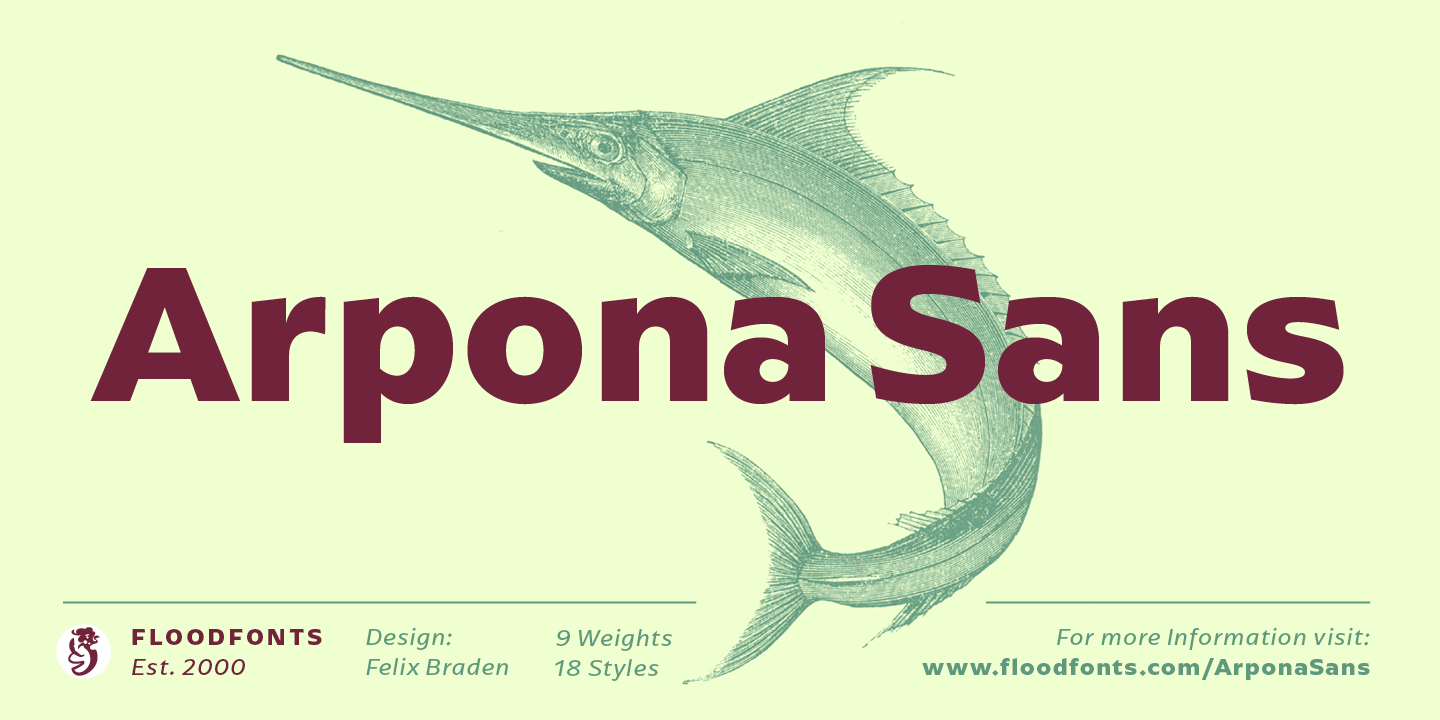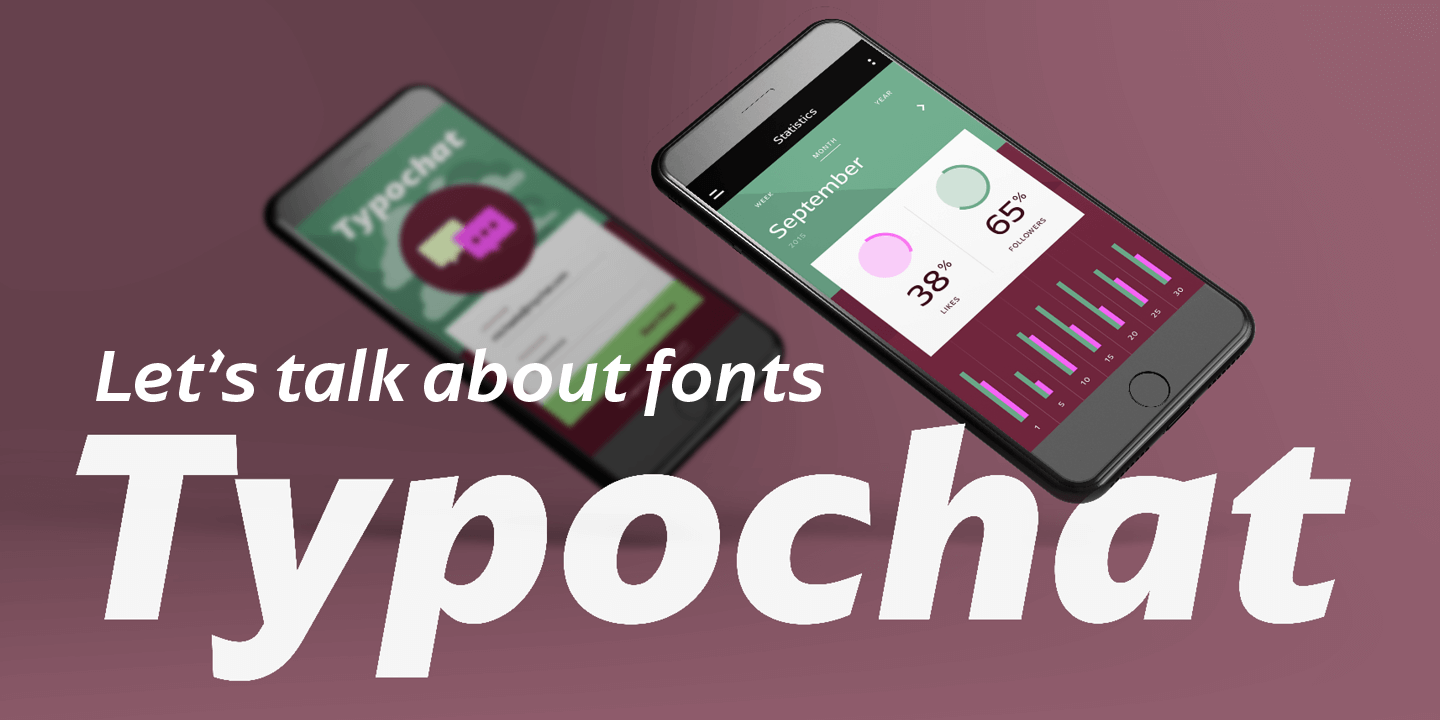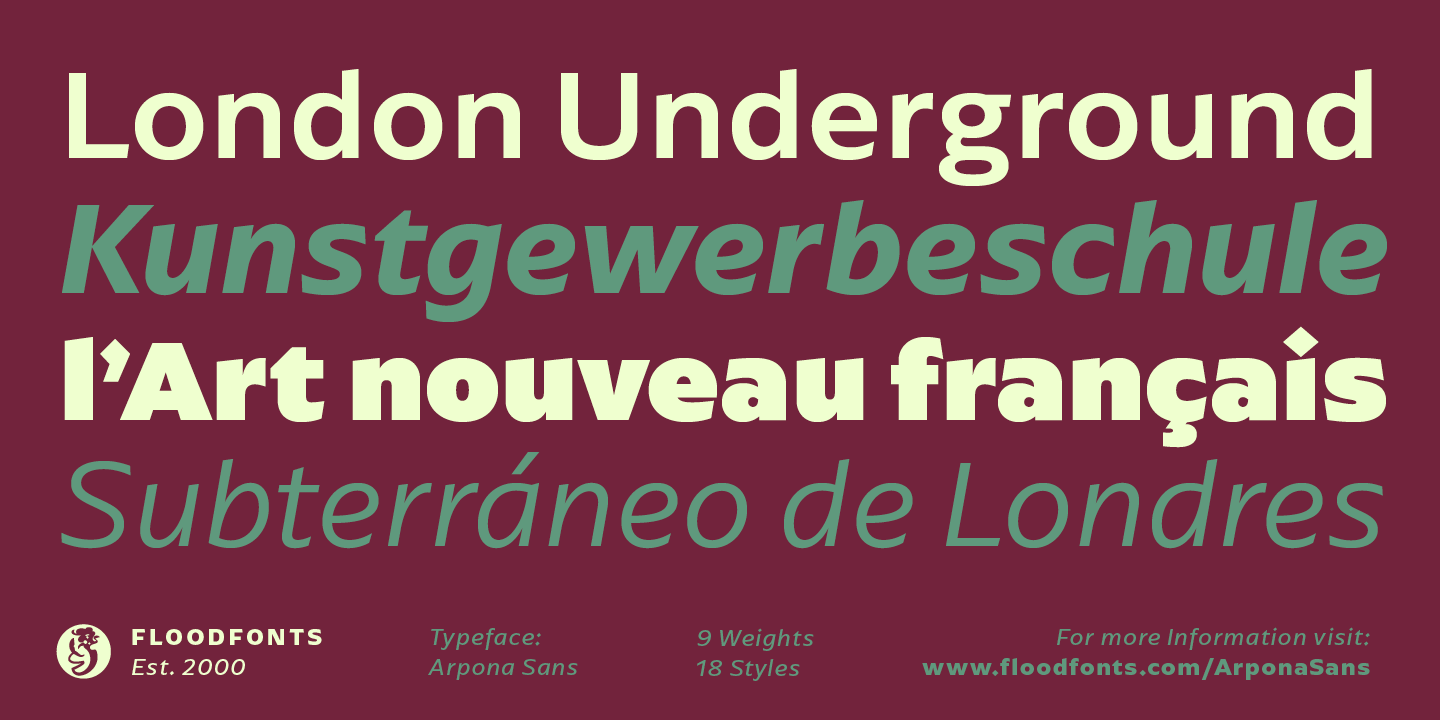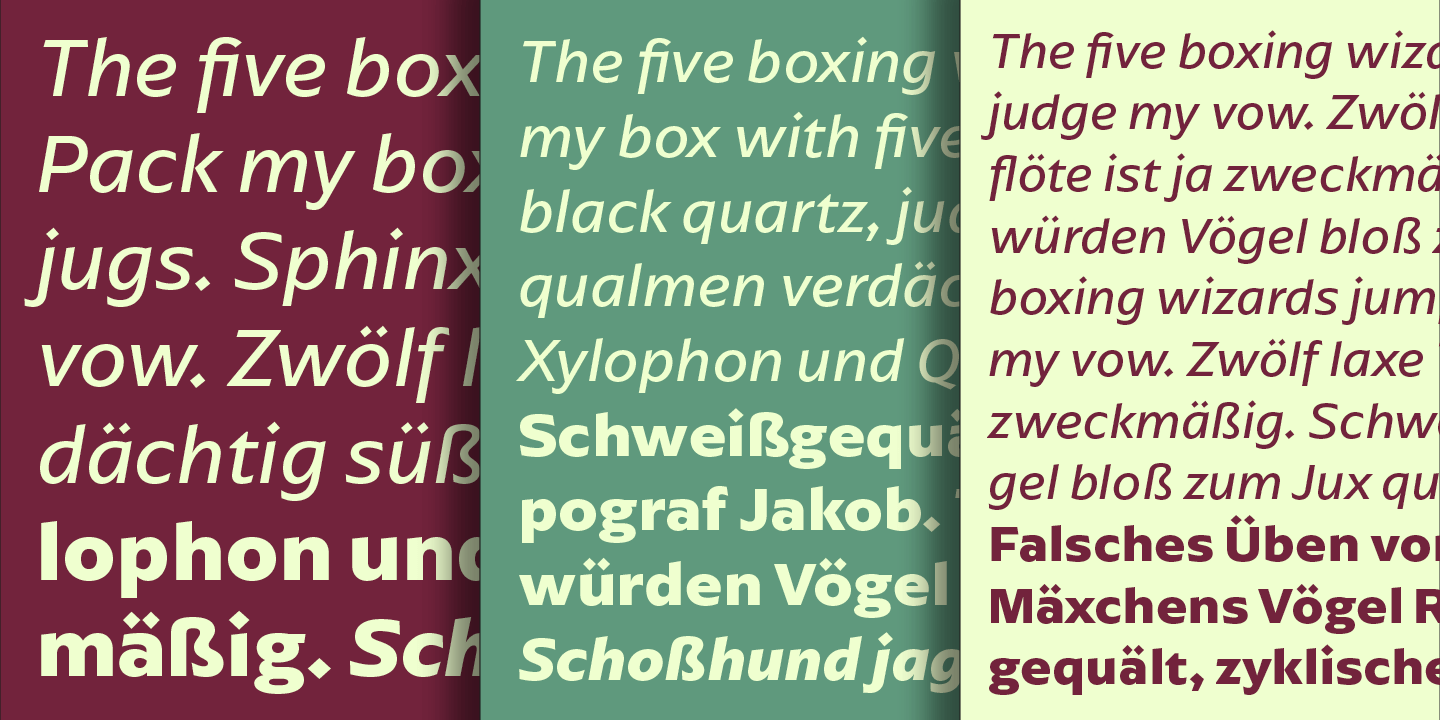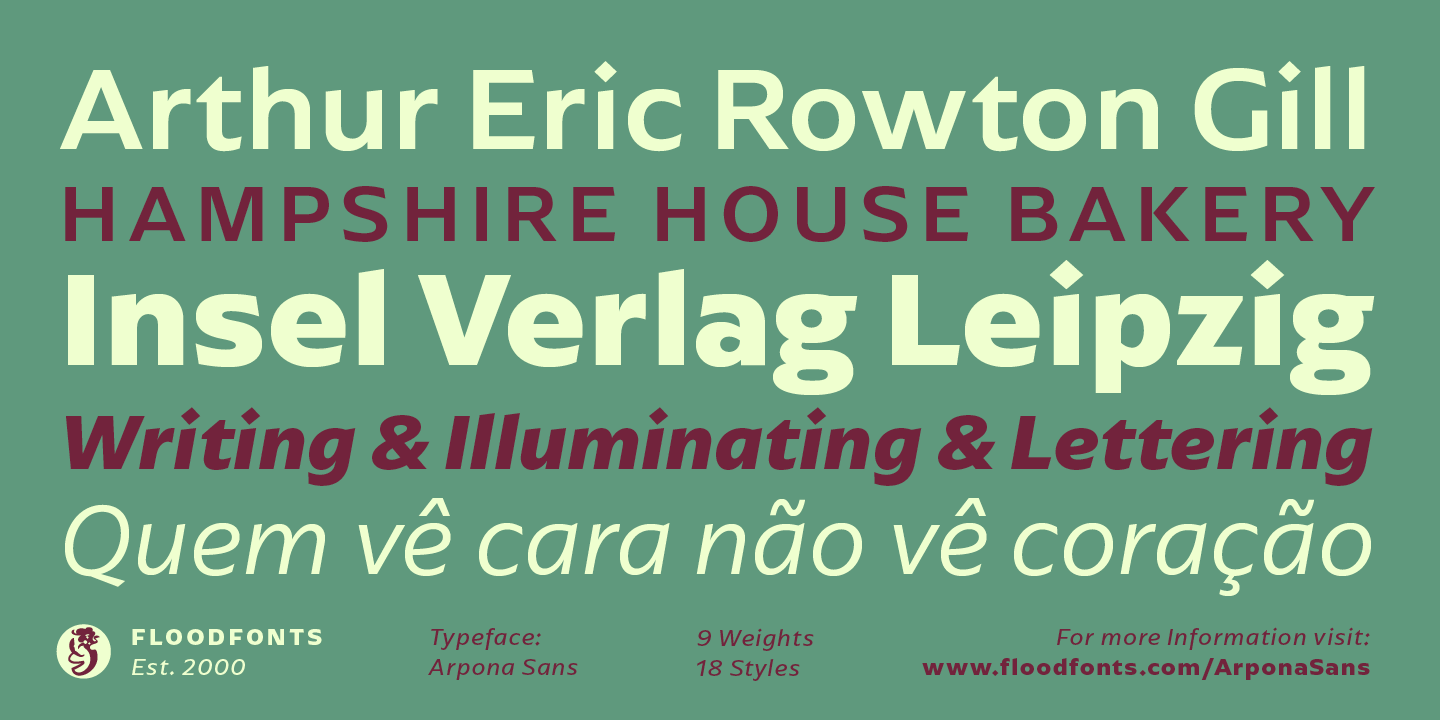
Arpona Sans
Arpona Sans is a contemporary sans serif family inspired by the work of Edward Johnston for London Underground. As well as its serif companion Arpona it is a symbiosis of different design concepts. Arpona Sans combines the esthetics of a geometric Sans with the usefulness of the humanist concept and the calm of the modernist proportions. Arpona Sans is a good choice for editorial design, branding, app design and web design – a poetic workhorse well readable even in running text on screen. The family comes in nine weights, ranging from Thin to Black plus corresponding italics. Each style includes 588 glyphs supporting all western-, eastern- and central-european languages.